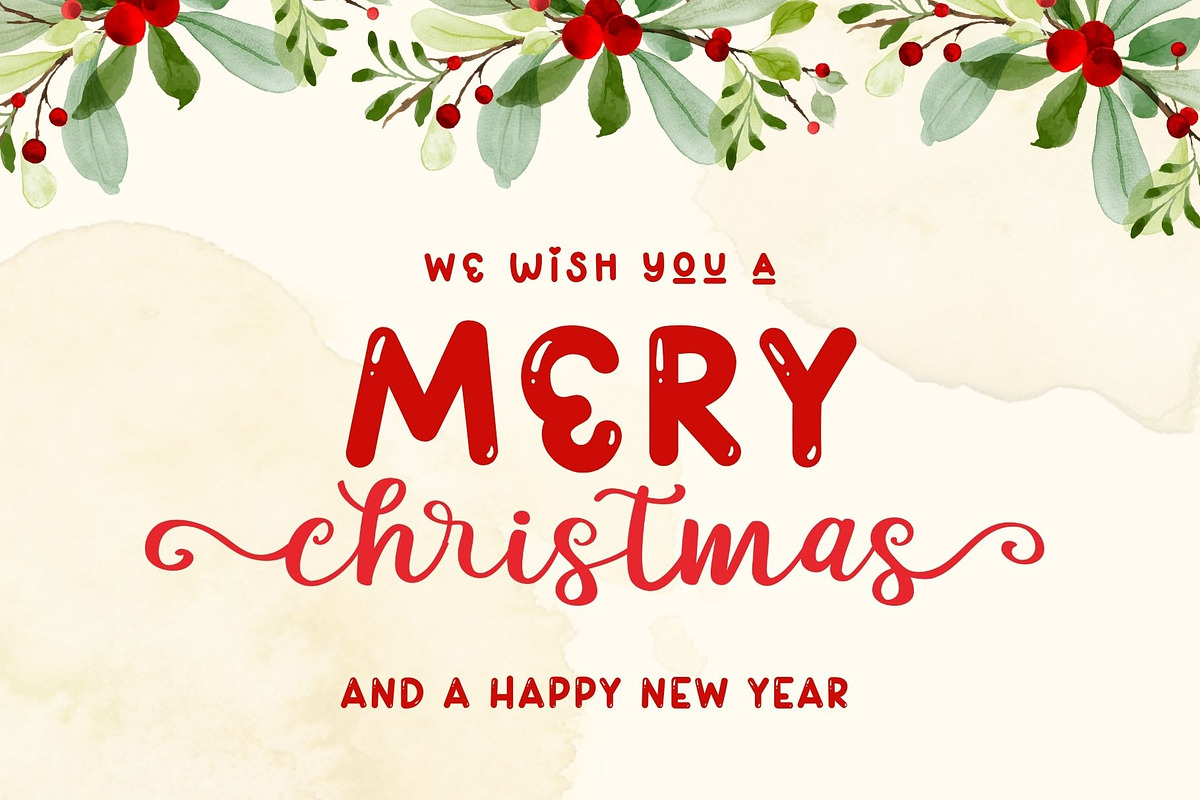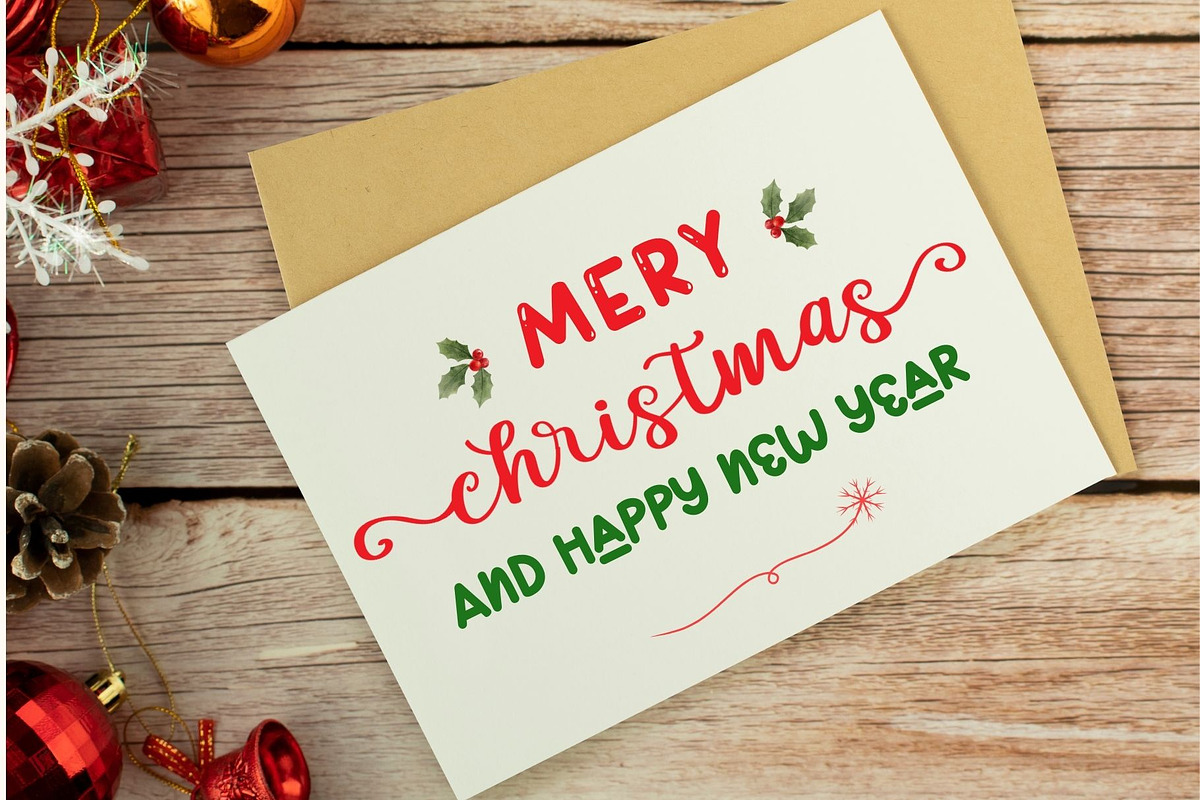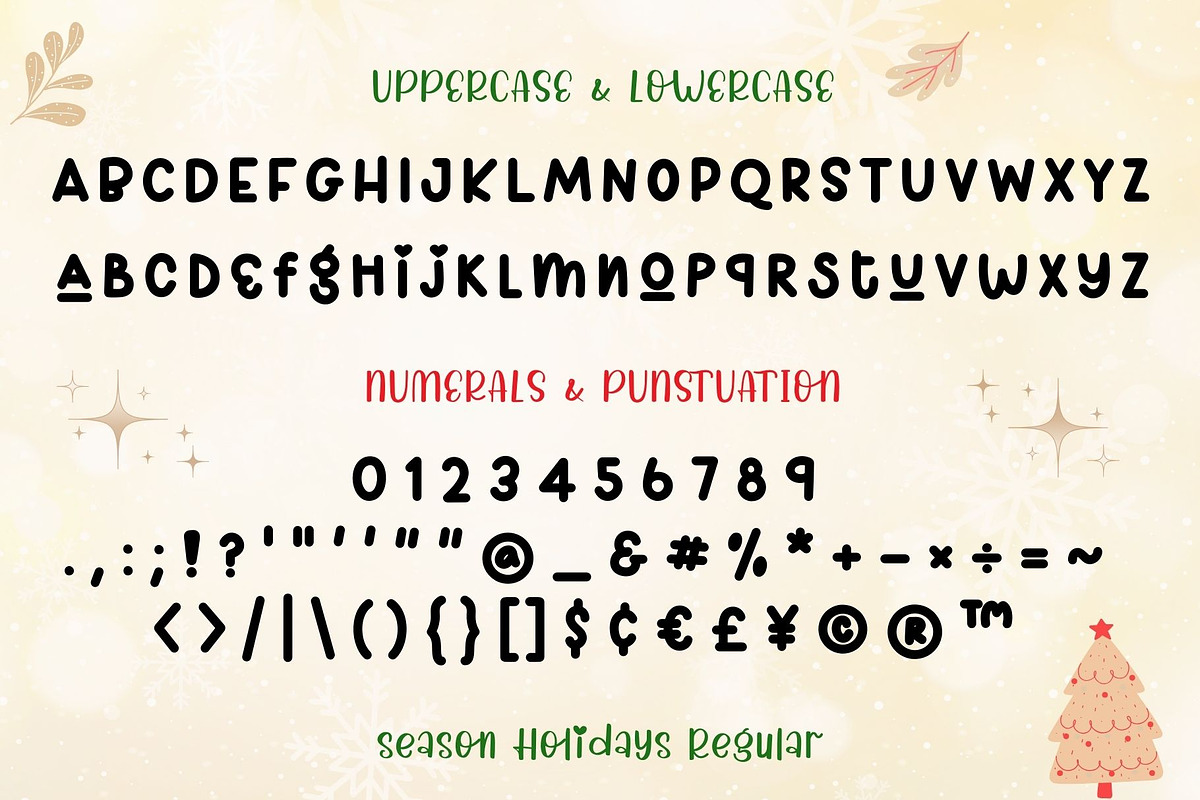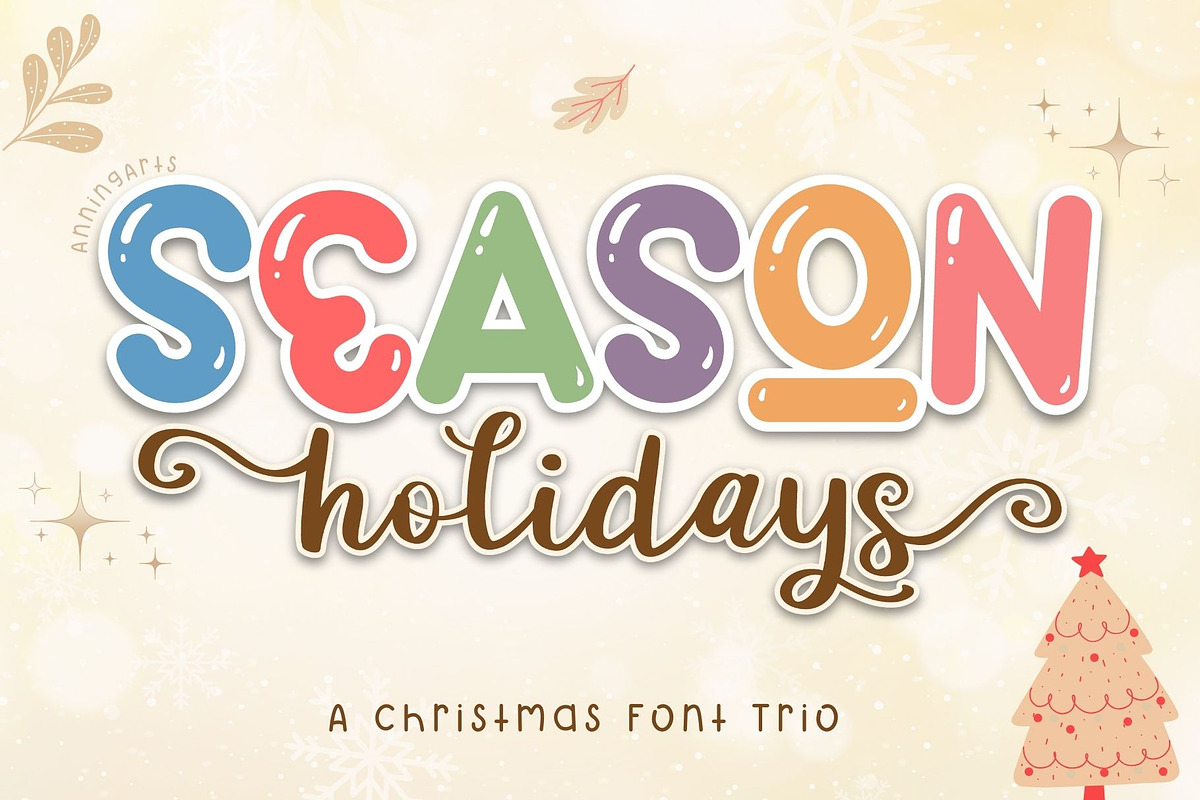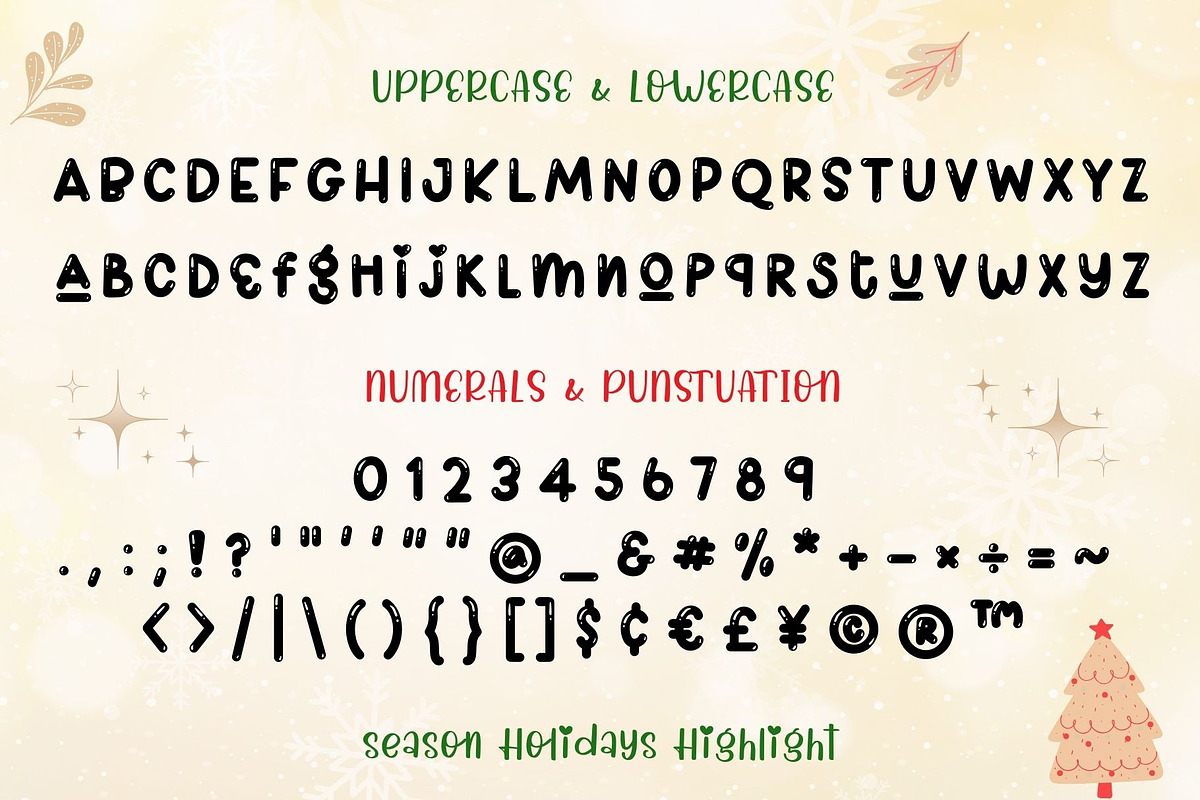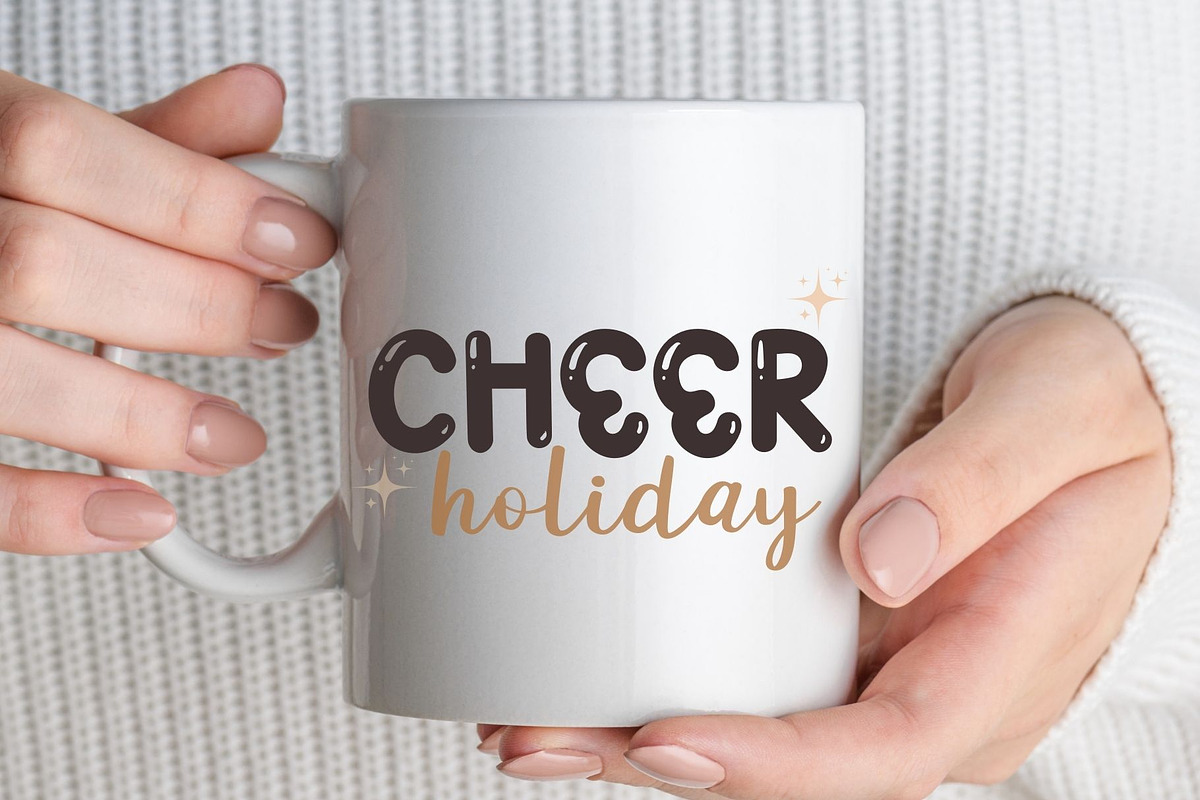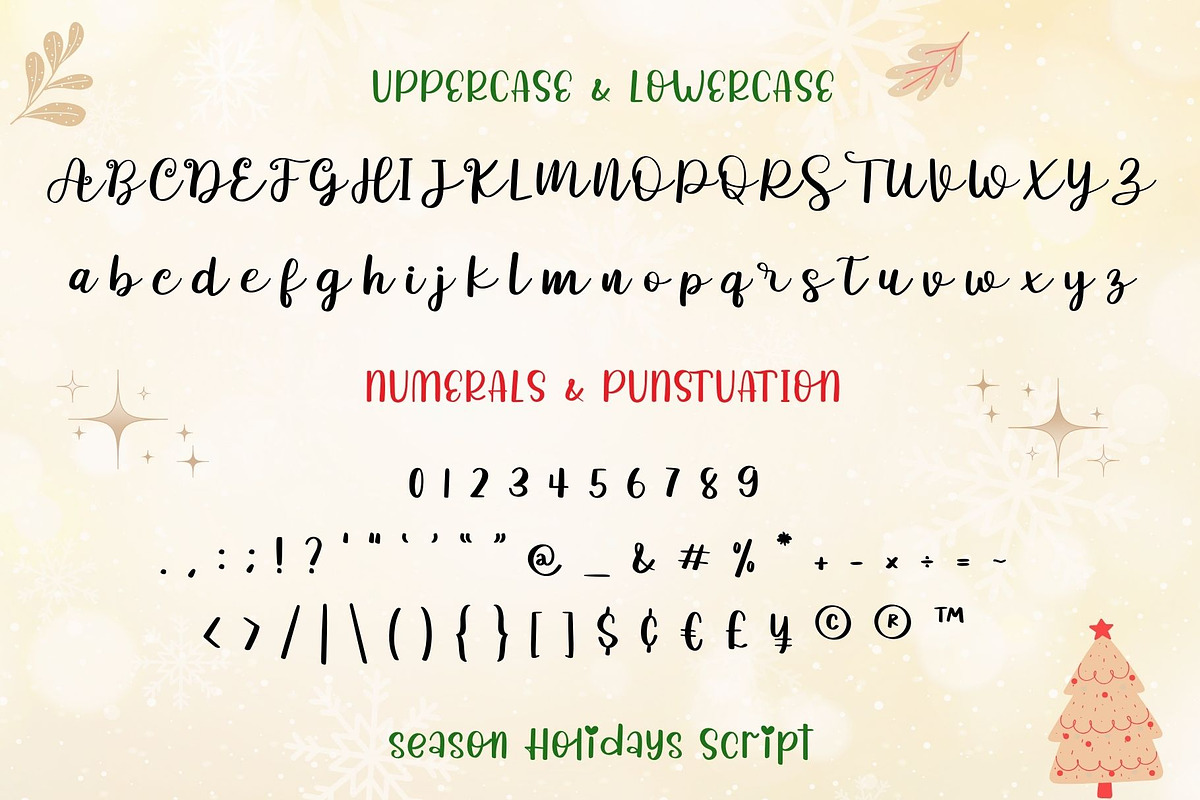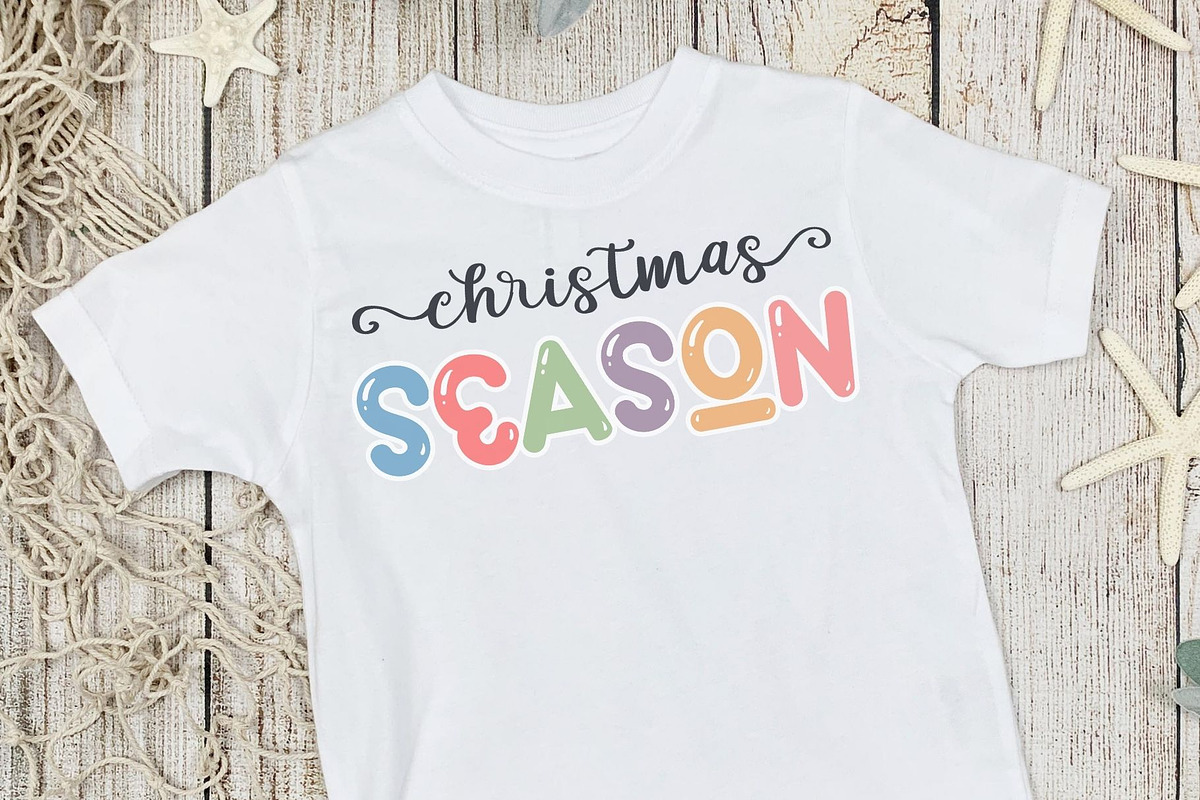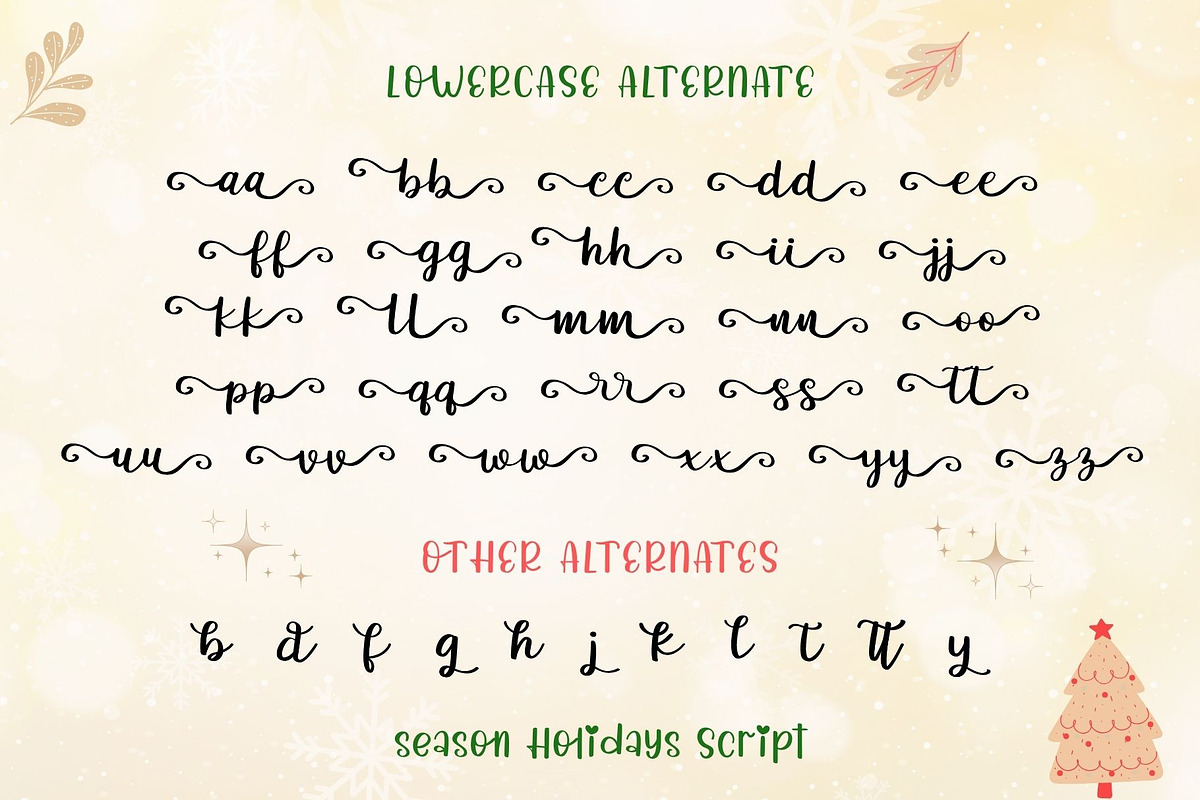
Season Holidays Font Trio
Season Holidays is a delightful and whimsical Christmas font trio, designed to infuse your creations with festive cheer. This versatile set includes a charming script font and a playful handwritten font, offering endless possibilities for unique and eye-catching designs. Perfect for crafting seasonal projects such as mugs, tote bags, t-shirts, pillows, and more, these fonts bring a touch of holiday magic to every piece you create.